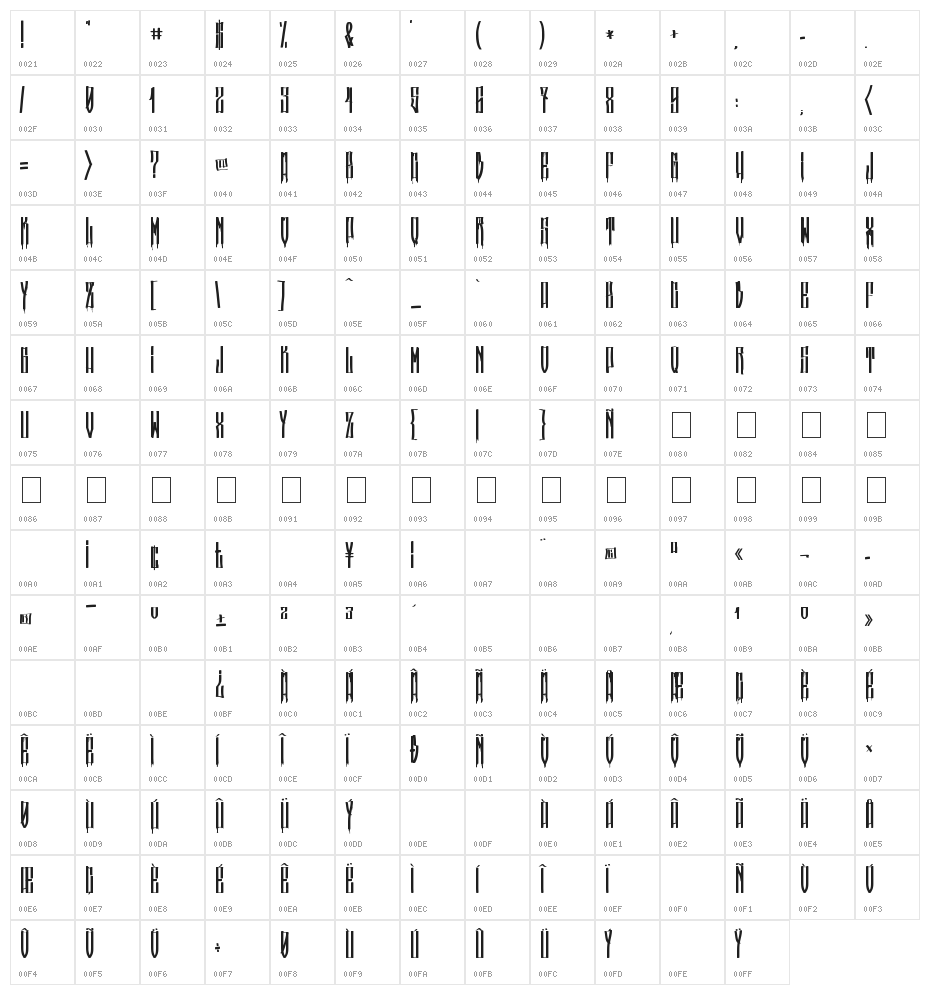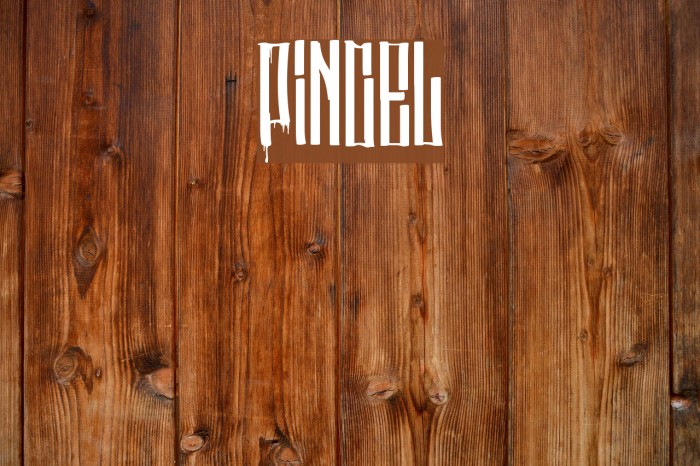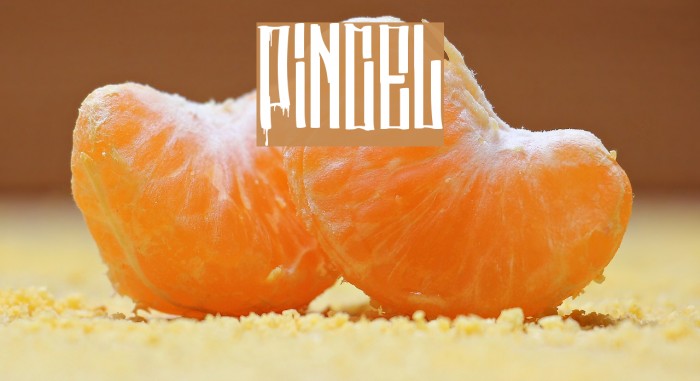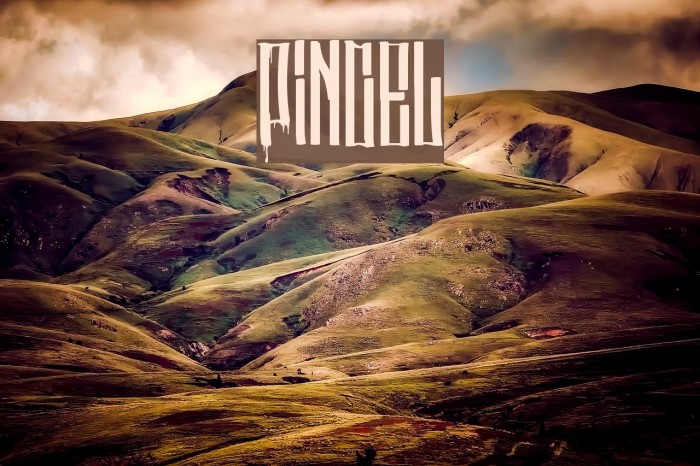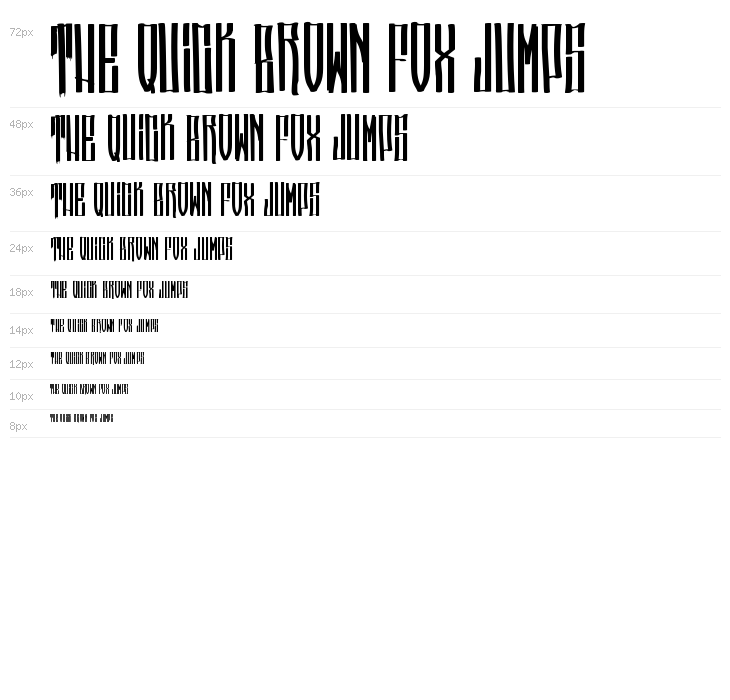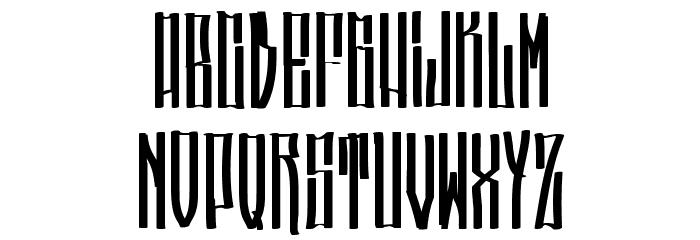
Pincel Font
Pincel Description
This font features a striking and dramatic design with elongated, sharp edges and a dripping effect that gives it a gothic and eerie appearance. The uppercase and lowercase letters maintain a consistent height, contributing to its uniformity. The numbers and special characters follow the same stylistic approach, ensuring a cohesive look across all characters. The font's unique style makes it ideal for projects that require a bold and attention-grabbing aesthetic.
| Overall Style | Gothic, Decorative |
| Proposed Projects | Ideal for Halloween-themed designs, horror movie posters, spooky event invitations, and any project needing a gothic or eerie touch. |